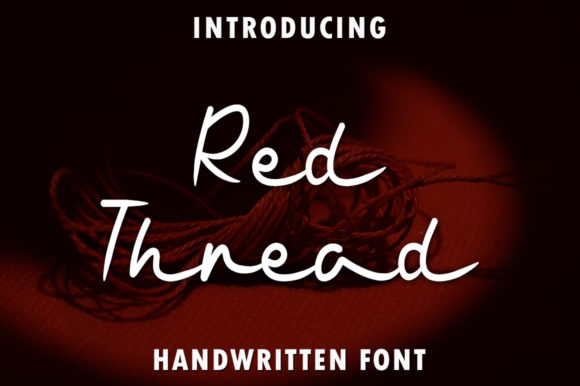
Red Thread: A Handwritten Font for Modern Web Design
When I began redesigning the homepage for a boutique floral shop, I was searching for a typeface that could capture their brand's delicate, romantic essence. I knew the standard serif and sans-serif fonts I usually used wouldn’t quite evoke that personal, joyful touch. That’s when I started testing Red Thread in my layout software, placing it as the hero headline over a soft background image. Immediately, the page’s mood shifted.
Red Thread for Wedding Invitations and Elegant Branding
Red Thread is a sweet and delicate handwritten font, and its visual characteristics are unmistakably dainty. In the context of web design, this isn't just a font for print; it’s a display font that brings a personalized, human touch to digital spaces. Its flowing, connected letters and gentle curves create a personality that is inherently romantic and approachable. For a website selling wedding services, custom stationery, or bespoke gifts, using Red Thread for key headings instantly establishes an emotional connection with visitors, framing the brand as thoughtful and crafted.
Integrating Red Thread Fonts into Website Headers and Hero Sections
On a landing page or portfolio homepage, the first impression is critical. I experimented with Red Thread for the main hero title on the floral shop’s site. As a script handwritten font, it performed beautifully for this singular, impactful phrase. Its joyful style drew the eye without overwhelming the supporting imagery. However, for longer sentences in hero sections, I’d advise using it sparingly; its delicate nature means readability can decrease with excessive word count. It’s ideal for a short, powerful statement that sets the tone.
For digital creators building a coaching website or a course sales page, consider using Red Thread for the page’s primary value proposition headline. It signals a personal, hands-on approach, differentiating the brand from more corporate-looking competitors. When placed over a clean background or a subtle gradient, the font maintains its clarity and adds significant polish to the overall brand experience.
Readability and Visual Hierarchy for Digital Layouts
Every font choice directly impacts how users scan and engage with content. When implementing Red Thread fonts, I focused on visual hierarchy. This font is not meant for body copy. Instead, I used it for H2 and H3 headings to break up sections on a product landing page, creating a clear, welcoming path for the reader. On mobile screens, I made sure to increase the font size slightly and check its rendering on various devices. The delicate strokes held up well on modern high-resolution displays, but ensuring ample contrast against backgrounds—both light and dark—was essential for maintaining professionalism and accessibility.
Using Red Thread on Call-to-Action Areas and Online Shop Banners
A call-to-action button or a promotional banner needs to attract attention while feeling cohesive. For the floral site, I tested Red Thread on a "Book a Consultation" button. While the font added a charming accent, for functional UI elements like small buttons, a simpler sans-serif companion font for the actual button text proved more legible. A better application was using Red Thread for the decorative text overlay on seasonal sale banners in the online store. This created a festive, personalized feel without compromising the urgency of the message. For digital ads and social media graphics exported from the web project, Red Thread provided that consistent branded touch across platforms.
Font Pairing and Web Design Compatibility
A script font like Red Thread shines when paired correctly. In my project, I paired it with a clean, geometric sans-serif font for all body paragraphs and UI navigation. This combination balanced the romantic flair with modern usability. For a more editorial digital identity, such as a blog redesign, pairing Red Thread with a classic serif font for subheadings could also work beautifully. The key is to let Red Thread be the decorative display font, the emotional anchor, while relying on more neutral typefaces for the bulk of informational content. This pairing strengthens brand consistency and guides user engagement smoothly from the captivating headline to the actionable details.
Before committing to any font for client projects or your own online brand assets, it’s prudent to check the technical specs. For web use, confirm that Red Thread is available as a webfont in standard formats like WOFF2. Investigate its included styles, weights, and any alternate characters or ligatures that could add flexibility. Also, verify the commercial font licensing to ensure it covers your intended use on websites, digital templates, and potentially embedded in product mockups for an e-commerce store.
Red Thread for Portfolio Sites and Campaign Landing Pages
For a creative professional—a photographer, illustrator, or wedding planner—a portfolio site is the central hub. Using Red Thread for your name or a key tagline in the header injects immediate personality and craftsmanship into your digital presence. On a campaign landing page for a limited-time offering, this font can make the promotion feel exclusive and special. Its handwritten quality suggests a direct, personal invitation rather than a mass-market blast. In all these applications, the font serves as a strategic design asset, elevating the perceived value and trust in the brand.
Building a Polished Online Brand Experience with Script Fonts
The final test in any web project is how the elements coalesce into a seamless experience. With Red Thread thoughtfully applied to headings and accents across the floral site, the entire digital identity felt more cohesive and intentionally designed. It moved beyond a mere collection of products to tell a visual story. This is the power of a well-chosen display font: it communicates brand values before a single word of body copy is read. For entrepreneurs, SaaS founders, and marketers crafting their online space, a font like Red Thread offers a simple yet profound tool to build that more polished, memorable, and emotionally resonant brand experience.
Whether you’re designing a blog header, a digital brand kit, or a promotional landing page, consider where a touch of delicate, joyful handwritten typography could soften your interface and connect more deeply with your audience. Red Thread fonts provide that opportunity, blending modern web functionality with timeless, personalized charm.